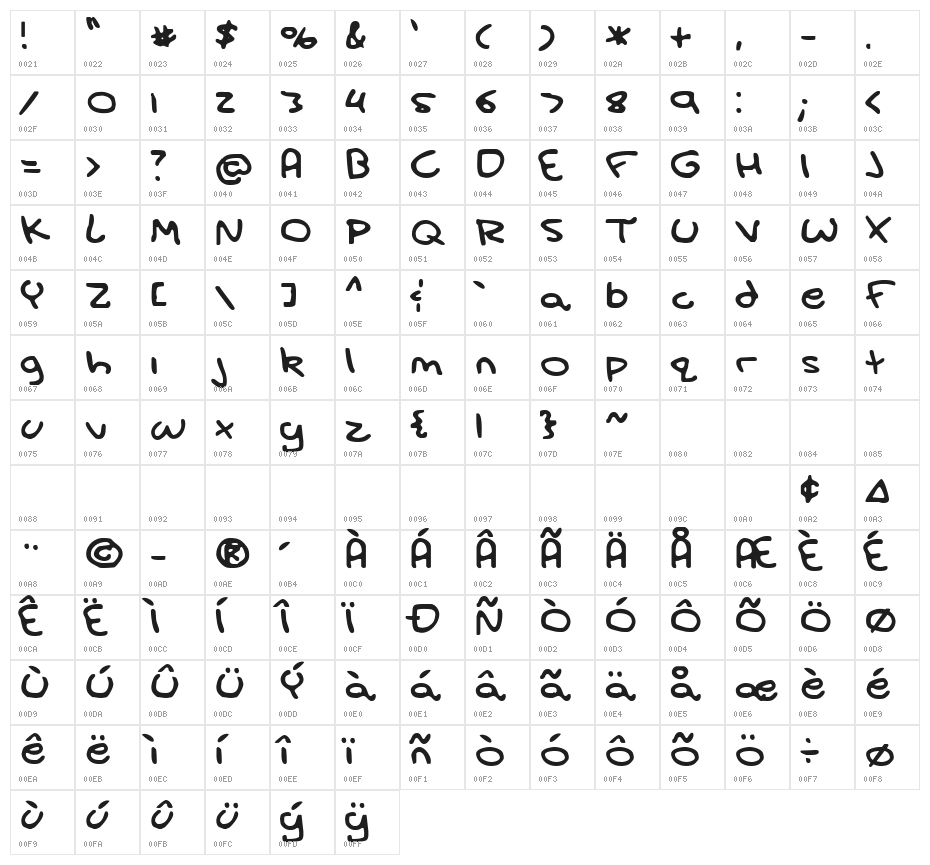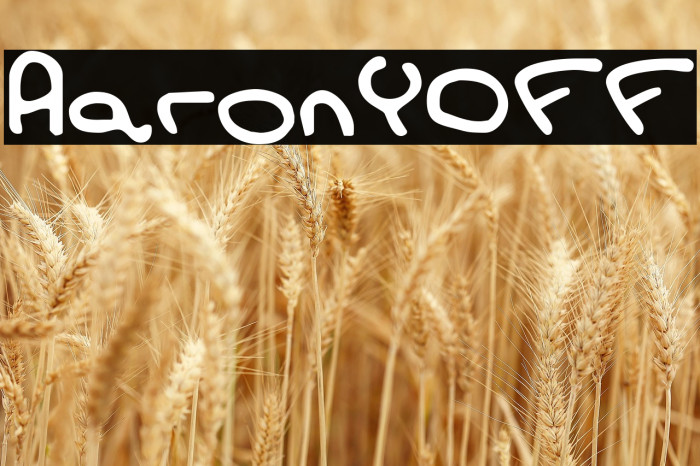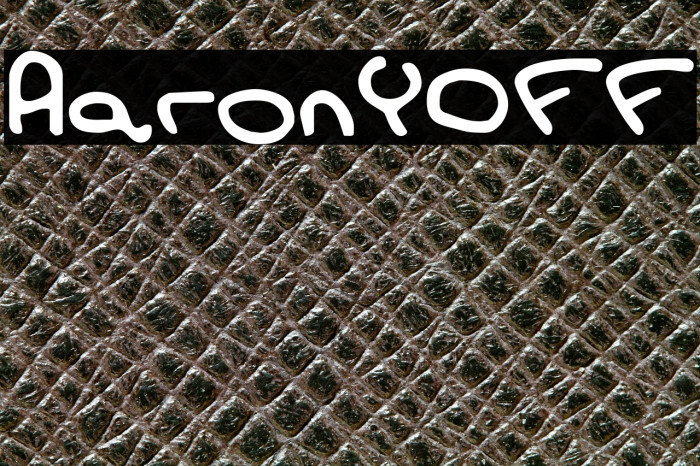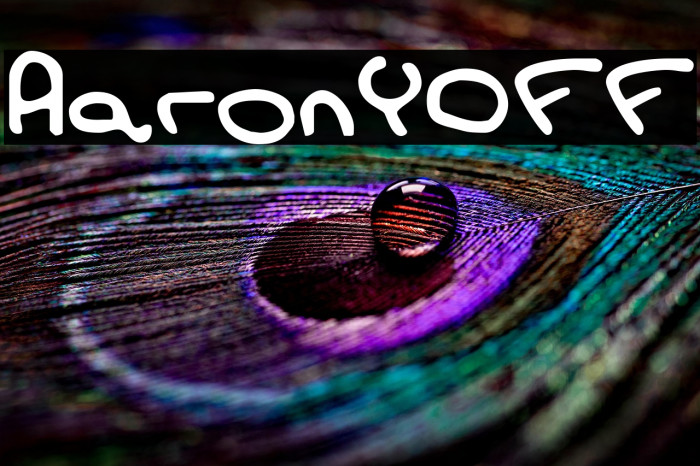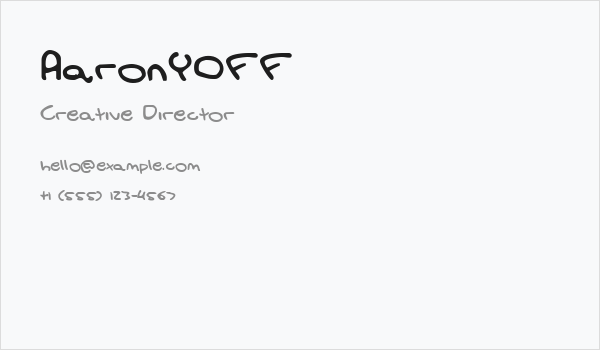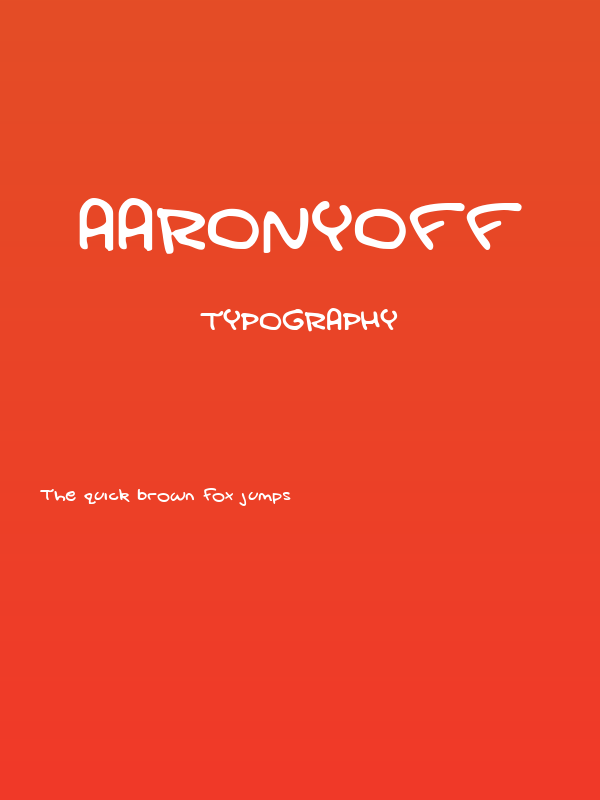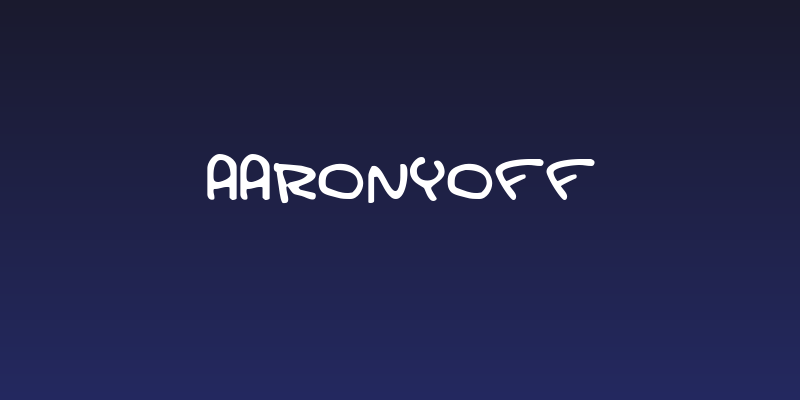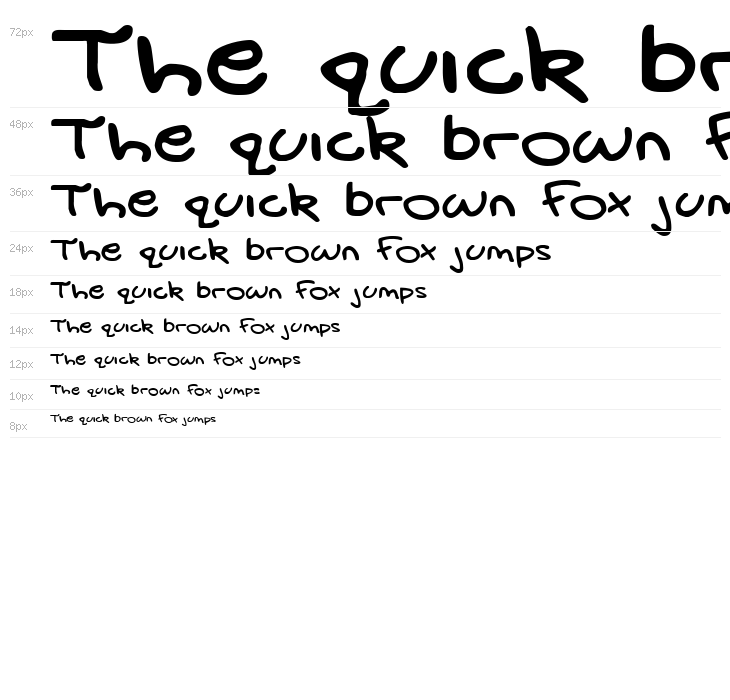
AaronYOFF Font
AaronYOFF Description
A playful, informal handwritten typeface with rounded, irregular strokes and a casual appearance. The characters have a loose, organic flow, with varying stroke thickness and slightly uneven baselines, giving it a friendly and approachable feel.
| Overall Style | Playful, Informal, Friendly |
| Use Case | Headlines, Short text, Logos, Informal notes |
| Proposed Projects | Children's books, greeting cards, informal posters, educational materials, playful branding. |